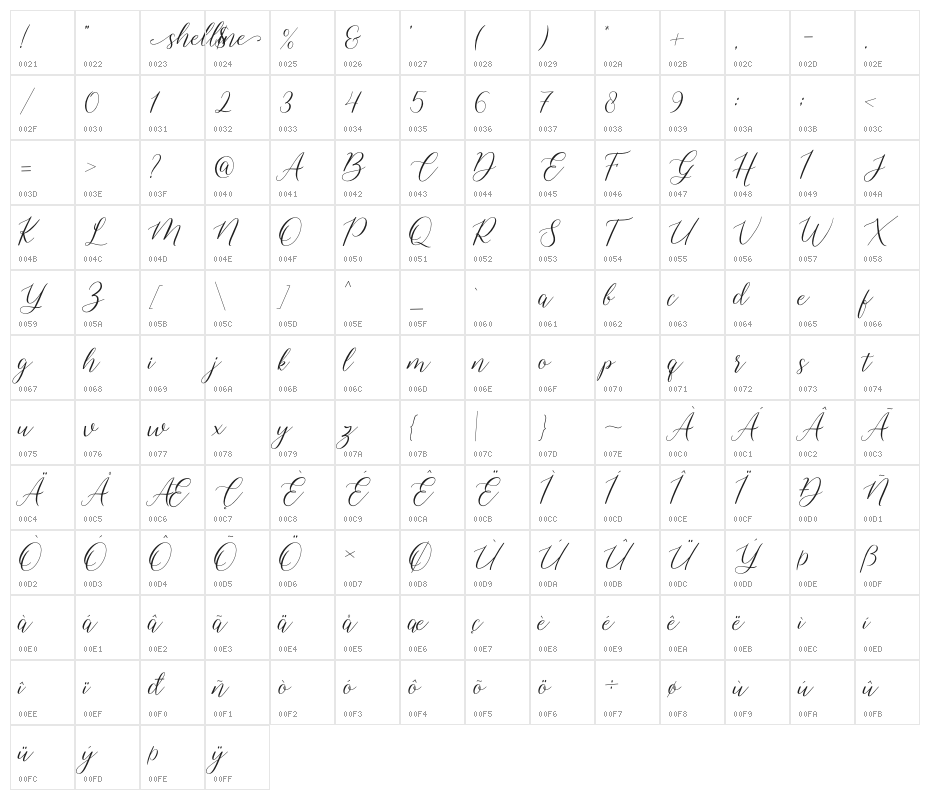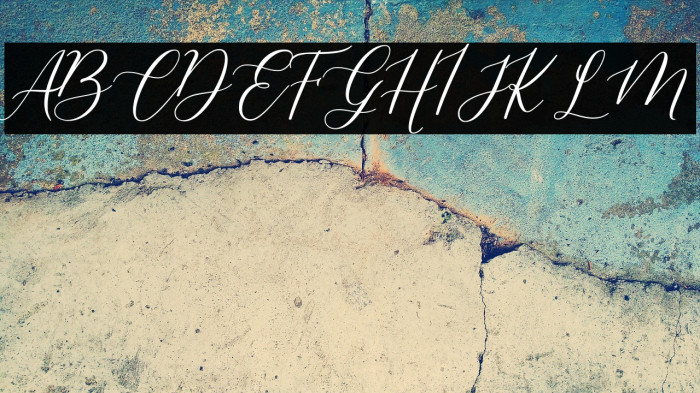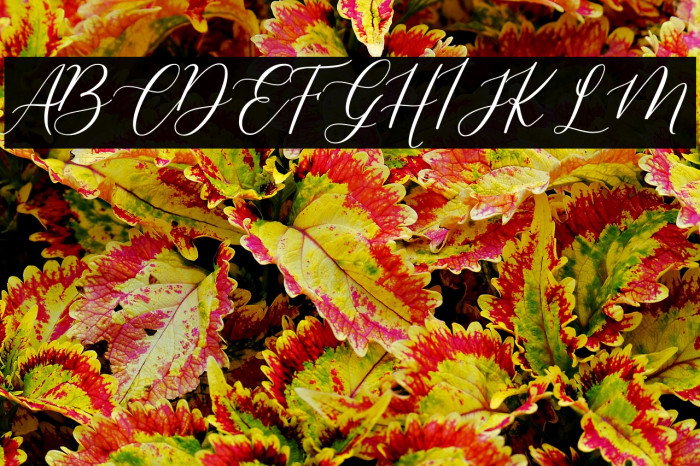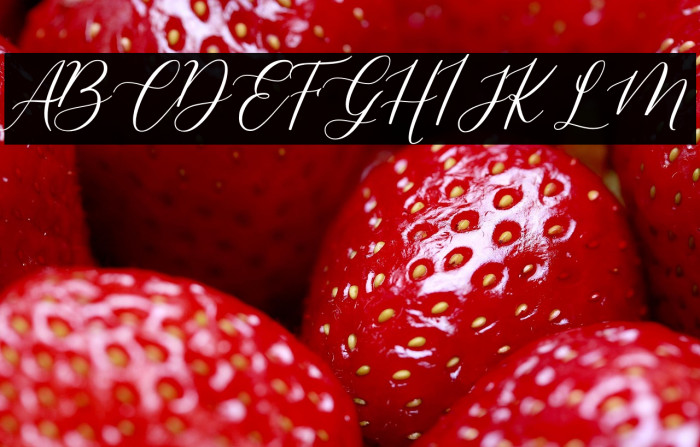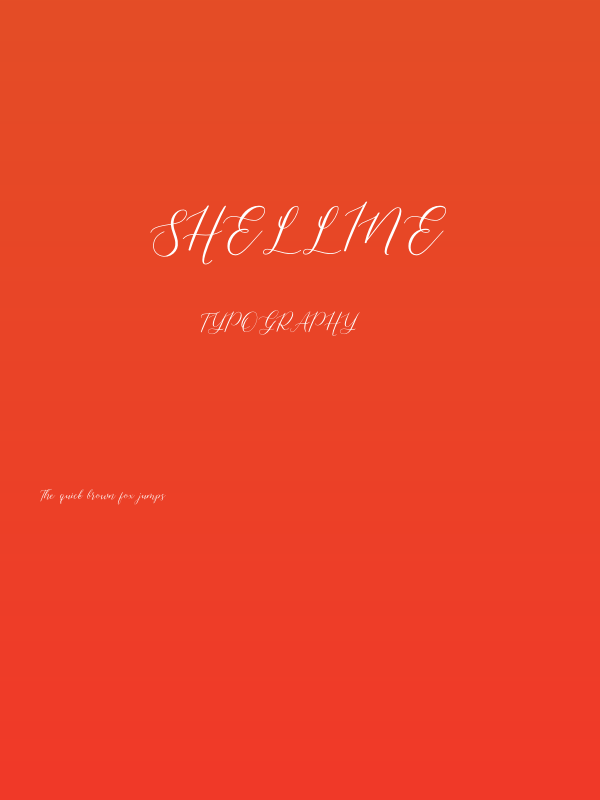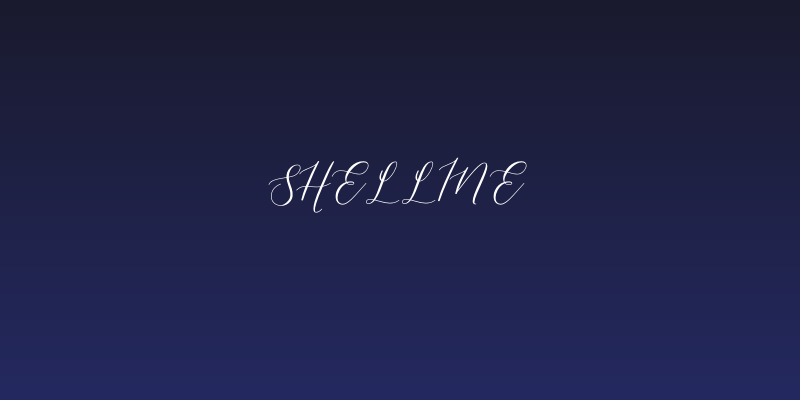
shelline Font
shelline Description
This elegant script font features flowing, cursive letters with a refined and sophisticated appearance. The uppercase letters are characterized by their graceful loops and swashes, while the lowercase letters maintain a consistent fluidity, enhancing the overall aesthetic. The numerals are stylishly integrated, complementing the alphabet with their curvaceous forms. Special characters are thoughtfully designed, adding versatility to the font. The font's delicate strokes and high contrast between thick and thin lines contribute to its luxurious feel, making it ideal for formal invitations, branding, and decorative purposes.
| Overall Style | Elegant |
| Use Case | Invitations, Branding, Decorative |
| Proposed Projects | Ideal for wedding invitations, luxury branding, greeting cards, and decorative designs. |